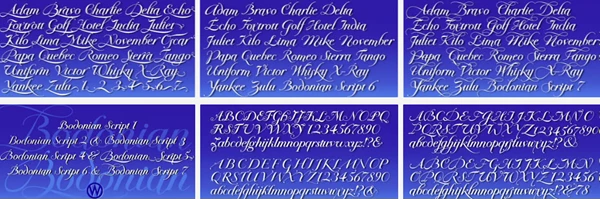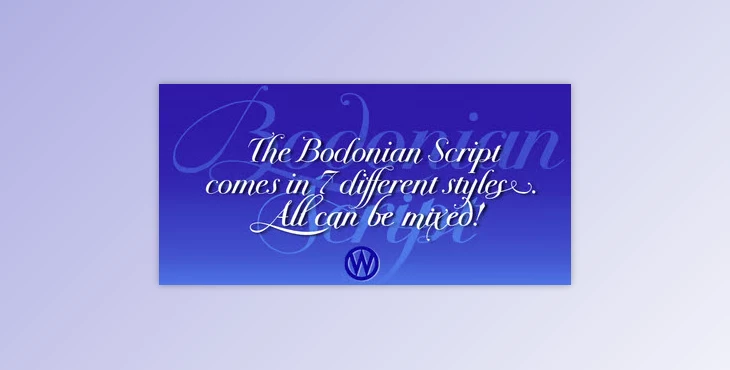
Bodonian Script is a collection of seven fonts that is both creative and flexible. All seven fonts can be used together for great combinations, and the first font is entirely Bodoni. Fonts 2, 3, 4, and 6 play with the capital letterforms. Font 5 offers swashes that contribute to the elegance of the script, while font 7 has swash-capital underlinings and special end-letters for lowercase.
This collection is meant to be used in conjunction with the Bodoni Classic fonts to expand opportunity; fonts will work with Microsoft Word and Wordpad, but understand that long descenders and ascenders will not appear appropriately or to their full potential due to limited program abilities. To access automatic ligatures, an OpenType-friendly program is suggested. The Bodonian fonts all come in individual formats, so you can use them independently as well as combine them. According to the creator, Gert Wiescher, this is the most diverse selection of letterforms he has provided.